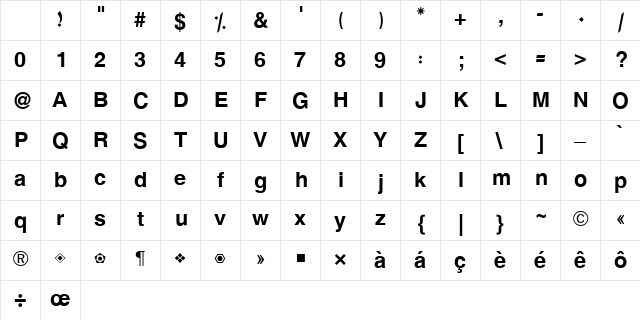
Complete Hacen Newspaper Regular glyph index. Displaying only characters natively supported by Hacen Newspaper Regular font.
Hacen Newspaper is a composed and adaptable typeface that performs quietly and consistently across a wide range of design contexts.
Pro Tip: Use Hacen Newspaper in both headline and body roles to test its range before committing to a single application.
Who designed the Hacen Newspaper Regular font?